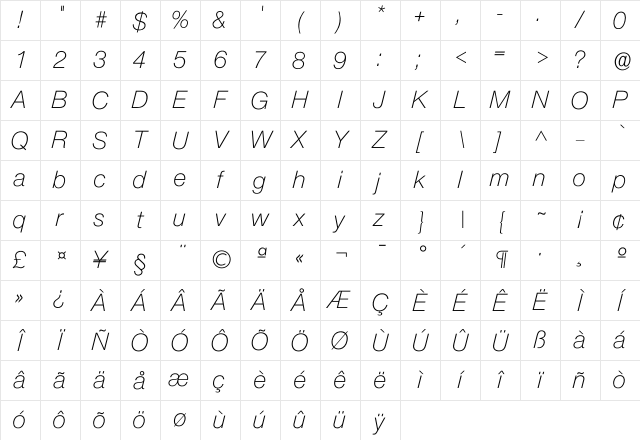
Iolnova Light
Design Context for Iolnova
Iolnova is a composed and adaptable typeface that performs quietly and consistently across a wide range of design contexts. Its slender proportions lend an understated elegance to any composition.